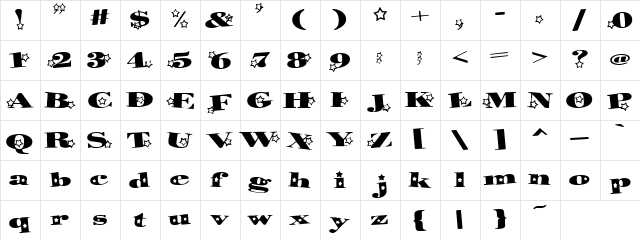
AnniesFunStars Regular
Design Context for AnniesFunStars Typeface
AnniesFunStars trades formality for fun, with bouncy, characterful letterforms that bring warmth and energy to any project.
Font Pairing: Pairs well with a rounded or humanist sans for body copy, maintaining the friendly tone without relying on AnniesFunStars to carry extended reading.
Pro Tip: Use AnniesFunStars at larger display sizes where its expressive character can land. Pair with a clean, simple sans for body copy to maintain readability.